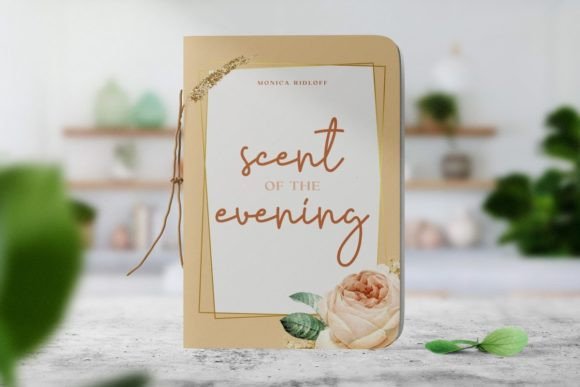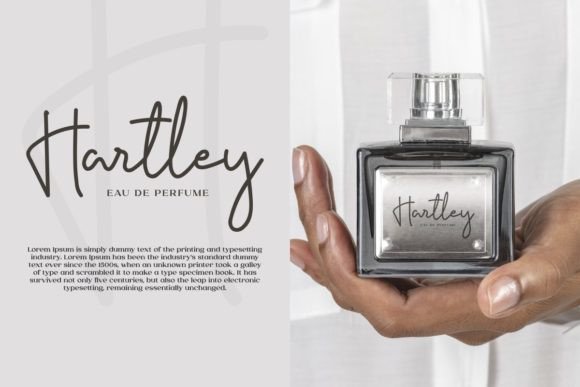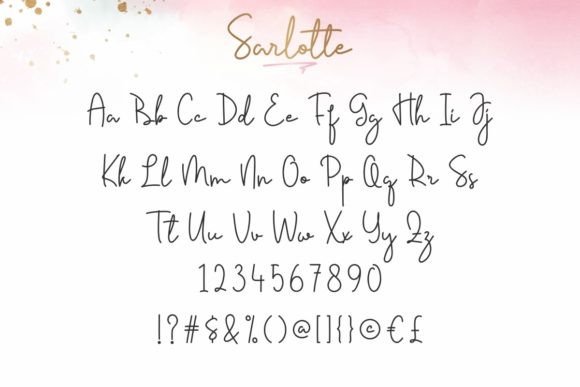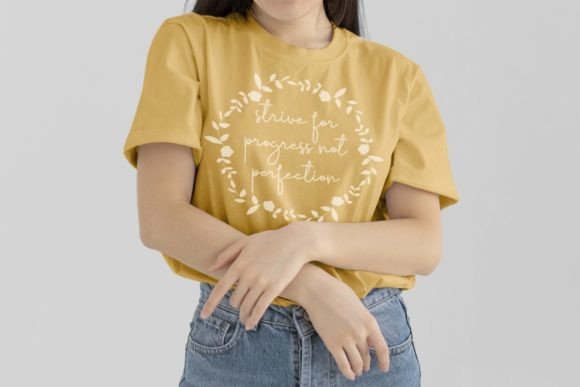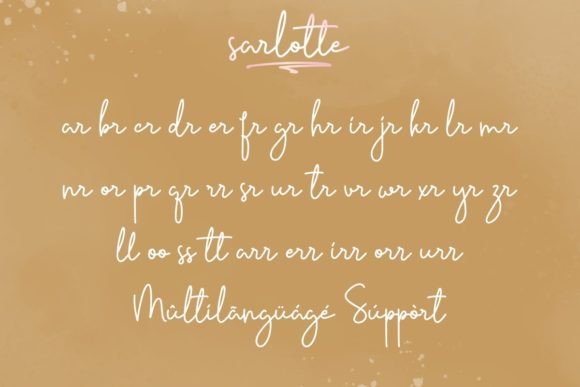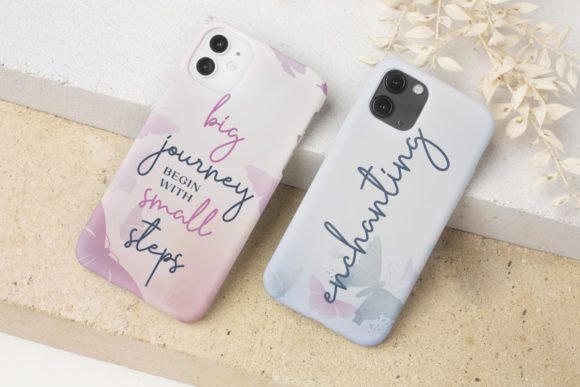
Introduction to Sarlotte Font
Imagine you’re brainstorming ideas for your next creative project, and you need a font that perfectly captures the essence of your brand. You search high and low, but nothing seems quite right until you stumble upon the perfect script font – Sarlotte Font.
This stylish handwriting font is a game-changer for designers, offering a beautiful and elegant touch to any project. Its unique design makes it versatile and easy to pair with other fonts, allowing you to create stunning combinations that elevate your design to the next level.
Whether you’re working on a fashion campaign, designing a perfume label, or crafting a custom invitation, Sarlotte Font is a valuable design resource that will help you bring your vision to life. And the best part? It’s available for free download, making it a high-quality asset for any creative project.
Key Features of Sarlotte Font
- High-quality font with a unique, elegant design perfect for creative projects.
- Comes in a single font style with multiple weights and sizes to suit different design needs.
- Perfect for designers and artists working on creative projects, such as graphic design, digital art, and more.
Honest Review: Sarlotte Font
I recently had the chance to work with the Sarlotte Font, and I must say, it’s a fantastic addition to any designer’s toolkit. As a design enthusiast, I’m always on the lookout for high-quality fonts that can elevate my creative projects.
Here are some things that work well with the Sarlotte Font:
- ✨ Beautiful, elegant script style that’s perfect for weddings, invitations, and other special events
- ✨ High-quality, crisp lines that make it suitable for both print and digital designs
- ⚠️ Limited character set, which may not be ideal for long texts or paragraphs
- ⚠️ May require some manual adjustments to ensure proper spacing and alignment
Overall, I’m impressed with the Sarlotte Font, and I think it’s a great design resource for any creative project. While it may not be perfect, its unique style and high-quality design make it a valuable addition to any font collection. Plus, it’s free to download, which is always a bonus!
Tips for Getting the Most Out of Sarlotte Font
To get the most out of Sarlotte Font, use it in creative projects that require a unique and eye-catching font. Some common use cases include:
- Graphic design and posters
- Print materials and business cards
Alternatives to Sarlotte Font
The Great Vibes Font is a beautiful, elegant script font perfect for creative projects that require a touch of sophistication. It’s available for free download and features a transparent background, making it ideal for designs where a subtle look is desired. Great Vibes Font is a great alternative to Sarlotte Font when you need a more refined and luxurious feel.
Comparison to Sarlotte Font: Great Vibes Font has a more classic and timeless feel compared to Sarlotte Font’s unique, modern design. Great Vibes Font is suitable for a wider range of creative projects, including wedding invitations, greeting cards, and high-end branding.
Alex Brush Font is a high-quality, handwritten font that’s perfect for designers looking for a unique and creative touch. It’s a great resource for designers who want to add a personal and emotive feel to their projects. Alex Brush Font is ideal for free download and features a transparent background, making it easy to use in a variety of design settings.
Comparison to Sarlotte Font: Alex Brush Font has a more relaxed and casual feel compared to Sarlotte Font’s sleek and modern design. Alex Brush Font is suitable for creative projects that require a more down-to-earth and approachable tone, such as food blogs, lifestyle magazines, and social media graphics.